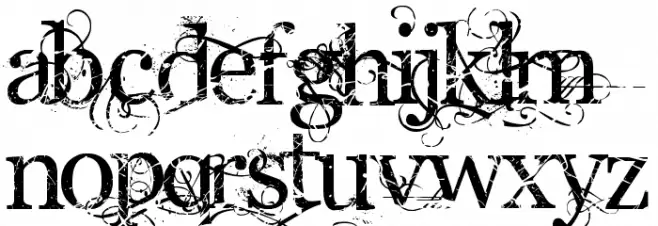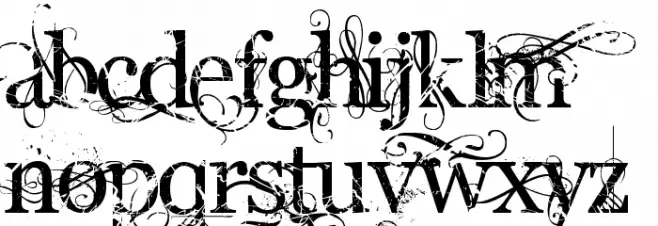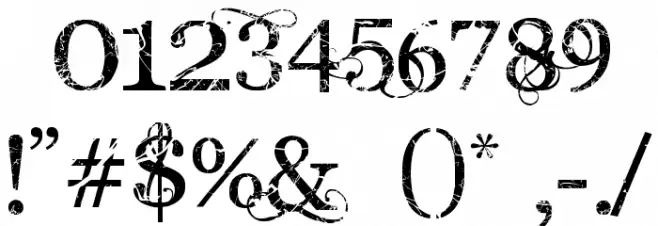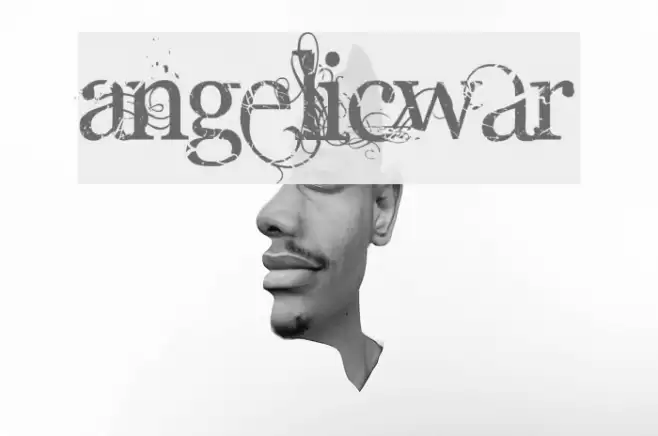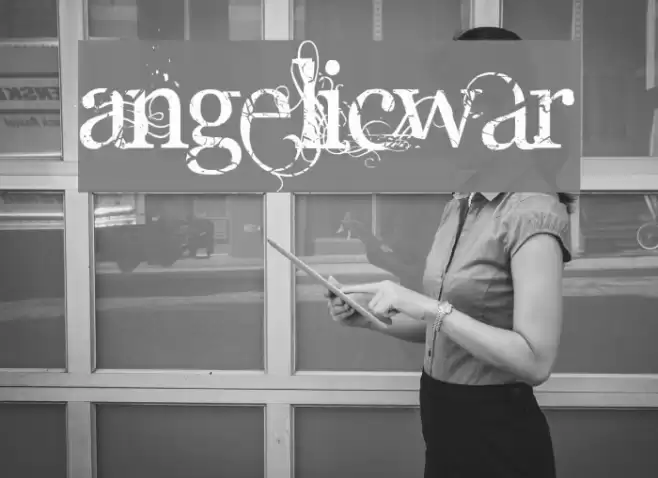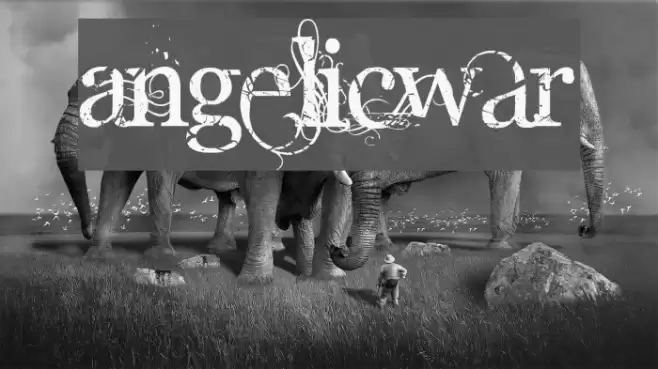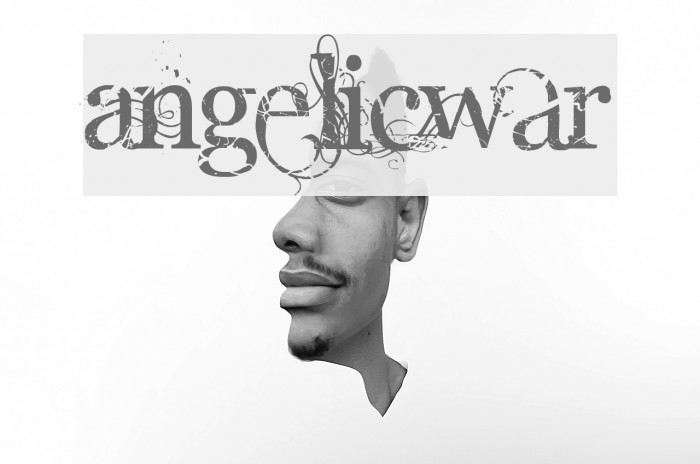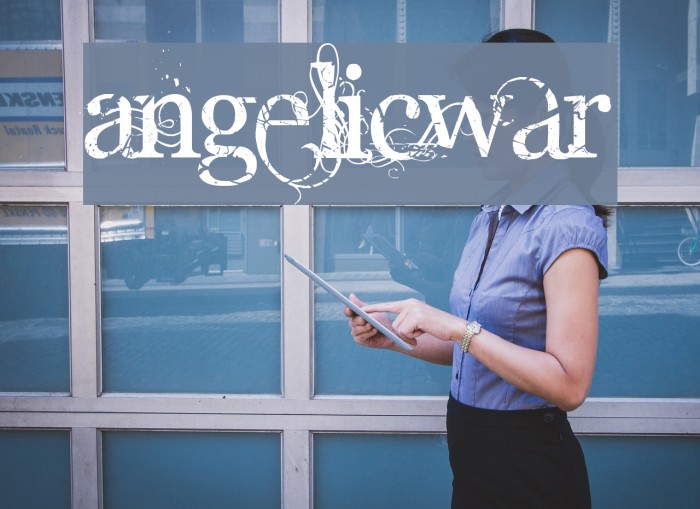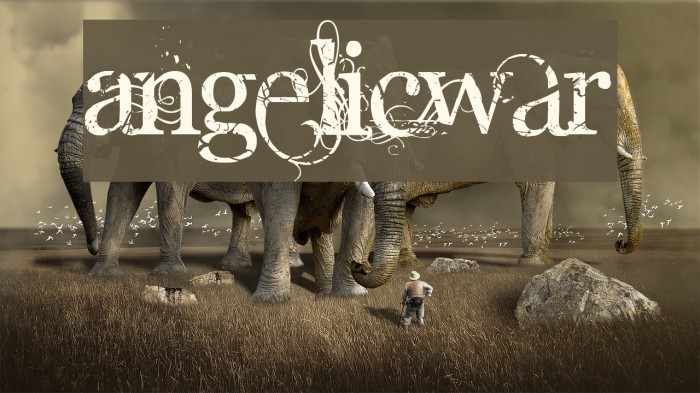
AngelicWar Font
AngelicWar Description
This font features an elaborate and decorative style, characterized by intricate swirls and flourishes that extend from the main strokes of each character. The letters have a distressed, grunge-like texture, giving them a vintage and artistic appearance. The uppercase and lowercase letters maintain a consistent design, with the embellishments adding a sense of elegance and complexity. The numerals and special characters are similarly adorned, ensuring a cohesive look throughout the font. This font's unique style makes it suitable for creative and expressive projects where a bold statement is desired.
A decorative font with intricate swirls and a distressed texture.
- Proposed Projects: Ideal for artistic projects, event invitations, posters, and branding that require a vintage or ornate touch.
- Overall Style: Vintage, Decorative
- Use Case: Logos, Posters, Invitations